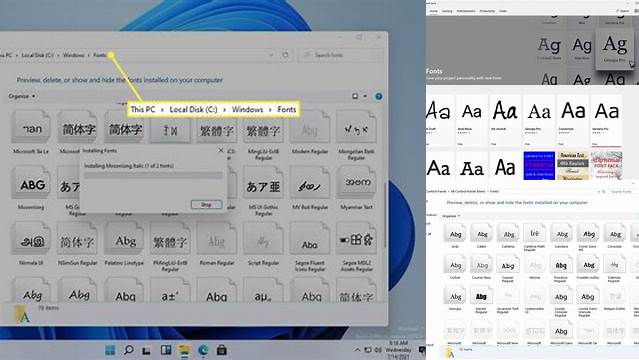
Windows System Fonts: A Comprehensive Guide
Hey guys, ever wondered about the text you see every day on your Windows screen? Well, that's where system fonts come in! They're the unsung heroes that make everything readable and visually appealing. This guide will dive deep into Windows system fonts, covering everything from what they are, how they work, and how you can customize them to make your Windows experience truly your own. Let's get started on this awesome journey, shall we?
Understanding the Essence of Windows System Fonts
Alright, so what exactly are Windows system fonts? Simply put, they're the default fonts that Windows uses to display text in its user interface, in applications, and throughout the operating system. Think of them as the foundation of your visual experience. They dictate how menus, window titles, icons, and even the text in your documents look. Windows comes pre-loaded with a variety of system fonts, each with its own unique style and character. These fonts are meticulously designed to ensure readability and visual consistency across the entire system. From the classic serif fonts like Times New Roman to the modern sans-serif fonts like Arial, each font plays a specific role in the overall aesthetic. The core function of these fonts is to provide a clear and consistent way to present information to the user. They ensure that text is easy to read, regardless of the application or window you're using. Understanding the basics of these Windows system fonts is the first step to truly personalizing your Windows experience. Did you know that the choice of system fonts can significantly impact how you perceive information? Different fonts evoke different moods and feelings. For example, a font with a clean and modern design can make an interface feel more streamlined and efficient, while a font with a more classic appearance can give a sense of tradition and reliability. Choosing the right system fonts is therefore a small but powerful way to tailor your computer to your personal preferences. Furthermore, these fonts are not just static elements; they're designed to scale and adapt to different screen resolutions and sizes, maintaining their readability across various displays. This ensures that the text remains crisp and clear whether you're using a small laptop screen or a large desktop monitor. The operating system uses these fonts to establish a consistent visual language, meaning that the same font is used for similar interface elements across different applications, promoting a unified experience. This consistency makes it easier for users to navigate and understand the information displayed on their screens. Also, these fonts are integral for accessibility features. Windows allows users to adjust font sizes and styles to accommodate visual impairments, ensuring that everyone can use and enjoy their computer without difficulty. Accessibility is at the forefront of font design, making sure that all users can engage with the system efficiently and comfortably. Windows system fonts truly are the backbone of your digital viewing experience.
Navigating the Default Windows Font Landscape
Now, let's explore the fonts that come pre-installed with Windows system fonts. When you first boot up Windows, you're greeted with a set of default fonts designed to work seamlessly right out of the box. The core fonts that Windows uses include things like Arial, which is a clean and versatile sans-serif font used widely for display and printing. Then there's Times New Roman, the go-to serif font for many documents, loved for its classic and professional look. Another common sight is Calibri, the standard font for Microsoft Office, known for its modern and readable design. And of course, there is Segoe UI, designed specifically for the Windows user interface. This font family plays a crucial role in presenting information in menus, buttons, and other UI elements. These Windows system fonts were chosen for their broad compatibility and suitability for a range of display scenarios. They are designed to look good on screen at various sizes, and to work smoothly across many applications. Beyond these defaults, Windows often includes a variety of other fonts to accommodate different languages, and style preferences. These include fonts specifically optimized for Asian language support, and fonts that lend a particular aesthetic to your system. These are included to cater to a diverse user base, allowing the operating system to work effectively in numerous linguistic environments. The beauty of these default fonts lies in their accessibility; they're designed to look good and be clear in various contexts. This ensures that the Windows experience is user-friendly for everyone, no matter their background or their technical skills. The default selection also ensures that the operating system maintains a level of visual coherence. Each font is meticulously chosen to integrate with the others, to give a consistent and professional feel to the interface. This careful selection of fonts is an understated element of the Windows experience, but it is essential for good user experience. Also, consider that these fonts aren't just static; they are regularly updated. Microsoft occasionally releases updates that improve the way fonts display on different screens. These improvements help to ensure that the readability and legibility of the fonts remain good, even as display technology advances. Therefore, the choice of default fonts plays a significant role in how people interact with their computers. Windows has a longstanding reputation for providing good visual aesthetics, and its system fonts play a key role in this. These carefully chosen fonts give the operating system its distinctive appearance.
Arial: The Workhorse of Windows
Arial, guys, is a true workhorse in the world of Windows system fonts. It's a sans-serif font, which means it doesn't have the small decorative strokes (serifs) at the end of each letter. This design makes Arial incredibly readable, especially on screens and in digital environments. It is a default font and often used in headings and body text across Windows applications. The beauty of Arial lies in its simplicity and versatility. It's a 'Swiss' font, and provides a clean and clear presentation that is not distracting. This clarity makes Arial a solid choice for applications ranging from word processing to web design. It is a font that is easy on the eyes, even after long periods of reading. It is an excellent choice for professional documents, reports, and presentations. Because of its clean appearance, Arial is commonly used in official documents, and the design of Arial helps make it easy to read. It is widely supported by various applications and operating systems, ensuring that your documents will look the same no matter where they are viewed. The Arial font family also includes various weights and styles, like bold, italic, and condensed, giving you flexibility. The flexibility of Arial means that it can be adapted to a range of design needs. These different versions help you make the fonts fit the exact requirements of your project. It's suitable for displaying information on screen because of its clear design. The different variations of Arial enable you to add emphasis and visual interest without sacrificing legibility. Another benefit of Arial is its good spacing. It provides good letter spacing, and makes reading a pleasure. The spacing of letters makes it a great choice for continuous blocks of text. This careful attention to spacing makes Arial a solid option for documents of all kinds. Also, Arial is a relatively neutral font. This means that it doesn't convey a strong emotion or personality, which can make it a good choice when you want the content to take center stage. Arial is a workhorse because of its readability, adaptability, and broad availability. It's a great choice for anyone who wants a clean and professional look. Arial, without a doubt, has a place in the heart of the Windows system fonts world.
Times New Roman: A Classic for Documents
Alright, next up, we have Times New Roman, a classic among Windows system fonts, and a real champion in the world of documents and formal correspondence. It is a serif font, meaning that it has the small decorative strokes at the ends of the letters, which helps guide the eye along the lines of text. This makes Times New Roman a great choice for long-form documents, books, and reports, where readability is a top priority. The history of Times New Roman is just as rich as its character. It was created in the 1930s for The Times newspaper, and it was designed to be more space-efficient and readable than the fonts that were available at the time. This history has given it a strong association with tradition, professionalism, and authority. This font has become a standard choice for academic papers, legal documents, and other formal publications. The traditional design of Times New Roman lends a sense of authority to your documents. The way the letters are designed make the text easy to read. It is a solid choice for formal contexts, and it helps give the impression of credibility and seriousness. Times New Roman is widely supported across different platforms and applications, which makes it an ideal choice if you want to ensure that your documents look consistent across different devices. You can be sure that the text will display correctly and maintain its intended format. It has excellent readability and it's designed for the printed page. The serifs help to guide the eye, which makes it less tiring to read large amounts of text. Although it may not be ideal for everything, Times New Roman shines in contexts where clarity and formality are key. The visual features of the font give the impression of elegance. Times New Roman is an excellent choice for anyone who wants a professional and timeless font for their important documents. It continues to be a popular choice, and its design remains both useful and effective. The legacy of Times New Roman as a Windows system fonts is a testament to its longevity and enduring appeal.
Calibri: The Modern Default
Calibri, guys, the modern default Windows system fonts for Microsoft Office. It's a sans-serif font, with a clean, contemporary look. Calibri is renowned for its readability on screen, making it ideal for both documents and presentations. It replaced Times New Roman as the default in Microsoft Office, and has become the standard for millions of users worldwide. The design of Calibri is based on a more organic, less structured approach than older fonts like Arial. The rounded letterforms and gentle curves give it a more friendly and approachable feel. Calibri is designed to be easily readable across a variety of devices, from small smartphone screens to large monitors. Its readability makes it an excellent choice for presentations and documents. Calibri is also designed to handle large blocks of text, making it a suitable option for reports, articles, and newsletters. The visual characteristics of Calibri make it easy to read on a variety of displays. The spacing of letters is carefully designed, which promotes good readability. The font is available in a variety of weights and styles, which provides ample options for emphasis and visual contrast. It also has a certain style and appeal for the modern user. Calibri is a great font to use when you want to create visually appealing content. The versatility of Calibri makes it a popular choice across many types of content, including presentations, documents, and online media. If you are looking for a modern, easy-to-read font, Calibri should be at the top of your list. The design is adaptable for a variety of purposes, and its modern appeal continues to make it a favourite in the realm of Windows system fonts.
Segoe UI: The Windows Interface Font
Segoe UI, Windows system fonts designed specifically for the Windows user interface. It's what you see in menus, buttons, window titles, and various other UI elements throughout the system. Segoe UI is crafted to ensure clarity and legibility at various screen sizes and resolutions. Its clean, modern appearance helps create a seamless and user-friendly experience. The careful design of Segoe UI helps to enhance the overall aesthetic of the operating system. Segoe UI has a slightly rounded shape that is both modern and user-friendly. It is designed to optimize readability on screen, making it an ideal choice for UI elements. This is the most important reason that it is so widely used. The font is designed to display well at different sizes, from small icons to large window titles, meaning that all system information remains clear and easy to read. The font is not only practical but also aesthetically pleasing. The overall design of the font complements the visual style of Windows. Segoe UI is specifically optimized to enhance the user experience. It helps to ensure that the UI is not only functional but also visually appealing. The font plays a critical role in making the Windows interface both accessible and intuitive. The design of Segoe UI enables users to efficiently navigate the system. This font helps to make the user experience more enjoyable and streamlined. The consistent use of Segoe UI contributes to the unified look and feel of Windows, making it a key component of Windows system fonts.
How to Adjust System Fonts on Windows
Want to change how your Windows system fonts look? You can! Let's talk about how to do it. Windows offers a few ways to customize your font settings. The settings app is one of the best places to start. You can find font settings there and personalize your experience. Another method is through the Control Panel. This is an older interface. You can access advanced customization options through the Control Panel. Both methods let you change the size, style, and sometimes, the specific font used for certain interface elements. There are also several third-party applications. These applications give you more control over the fonts, and their display on your system. The ability to customize your system fonts lets you make your Windows experience more personal. You can improve readability, or enhance the overall look and feel of your system. By customizing the fonts, you can ensure that your system meets your visual preferences. Windows system fonts are under your control.